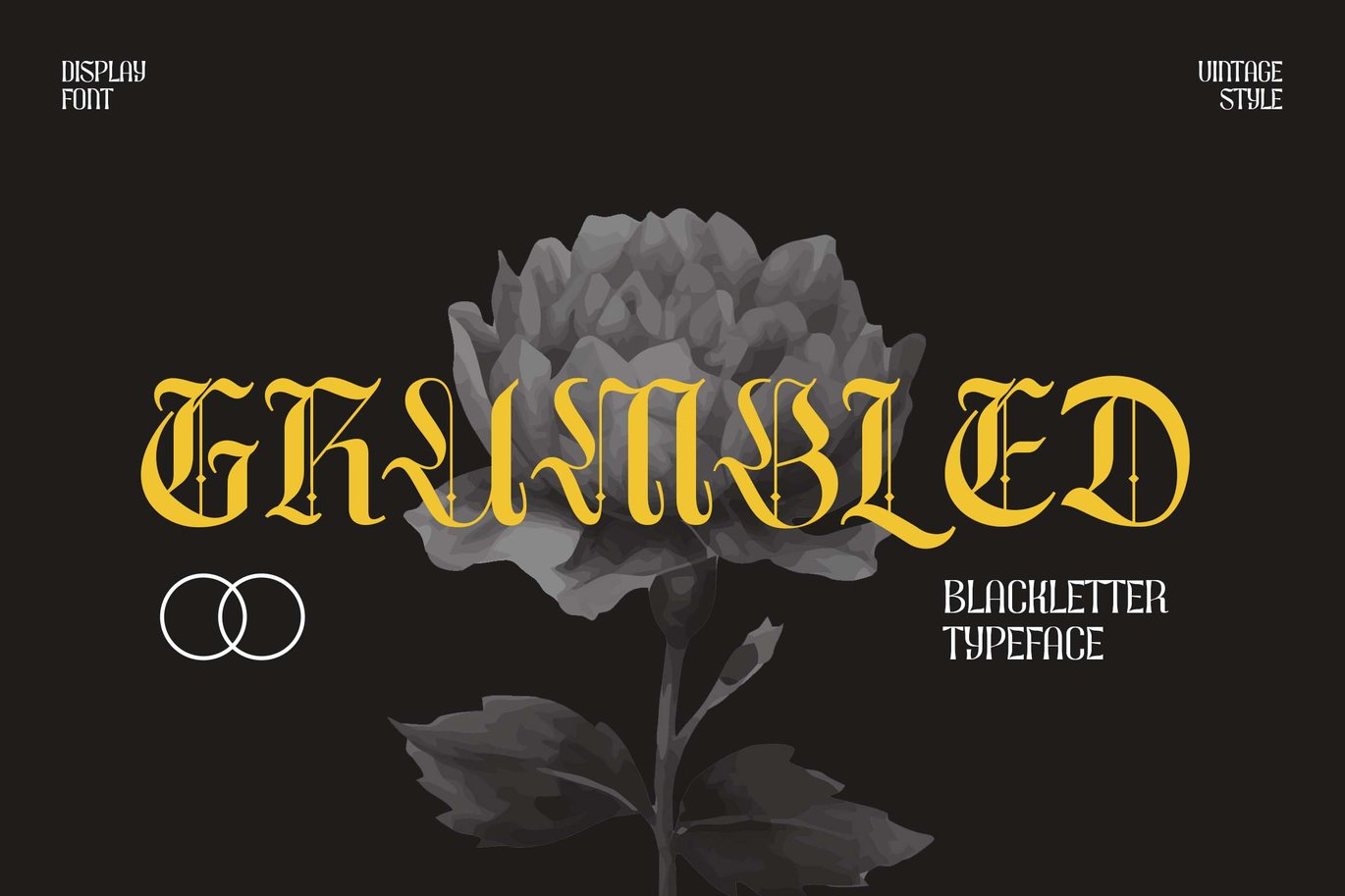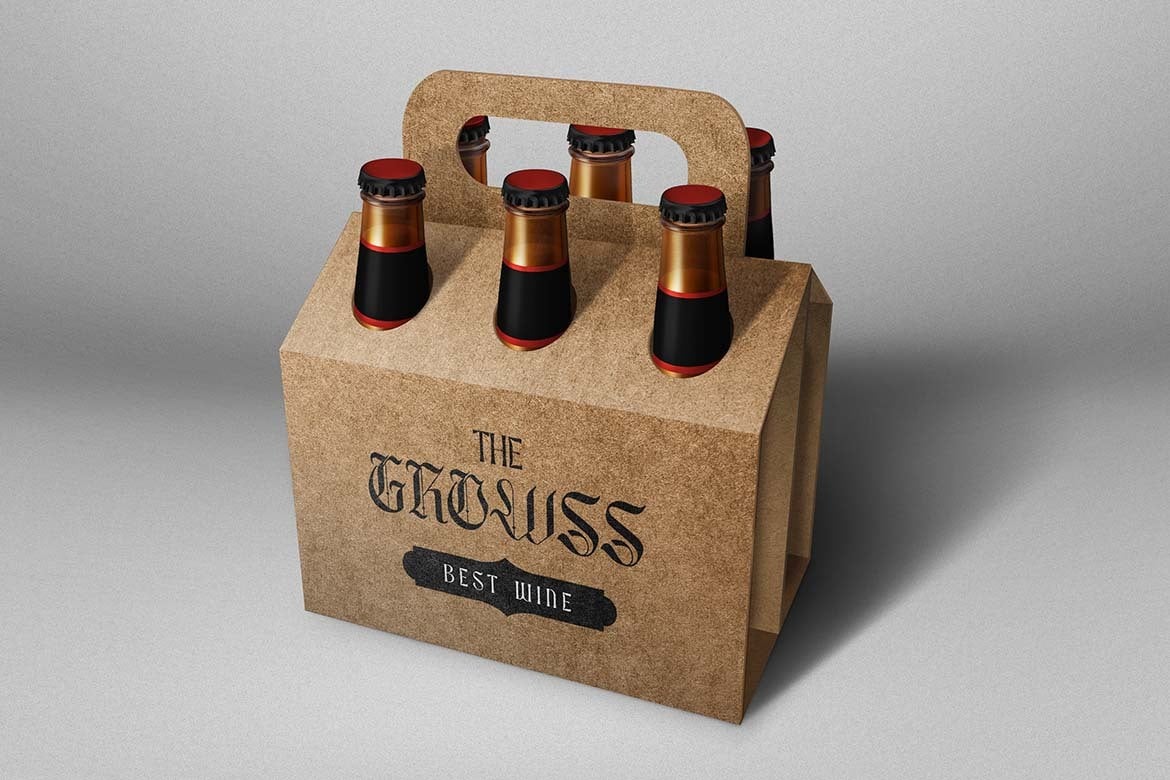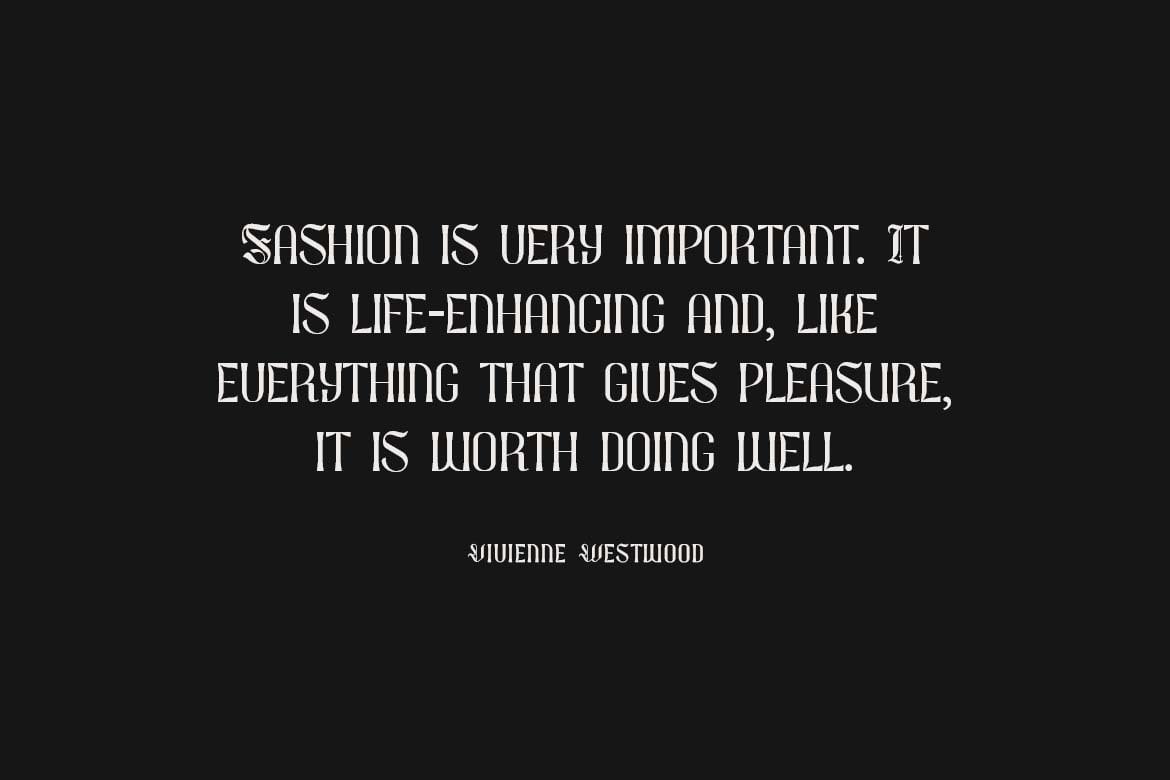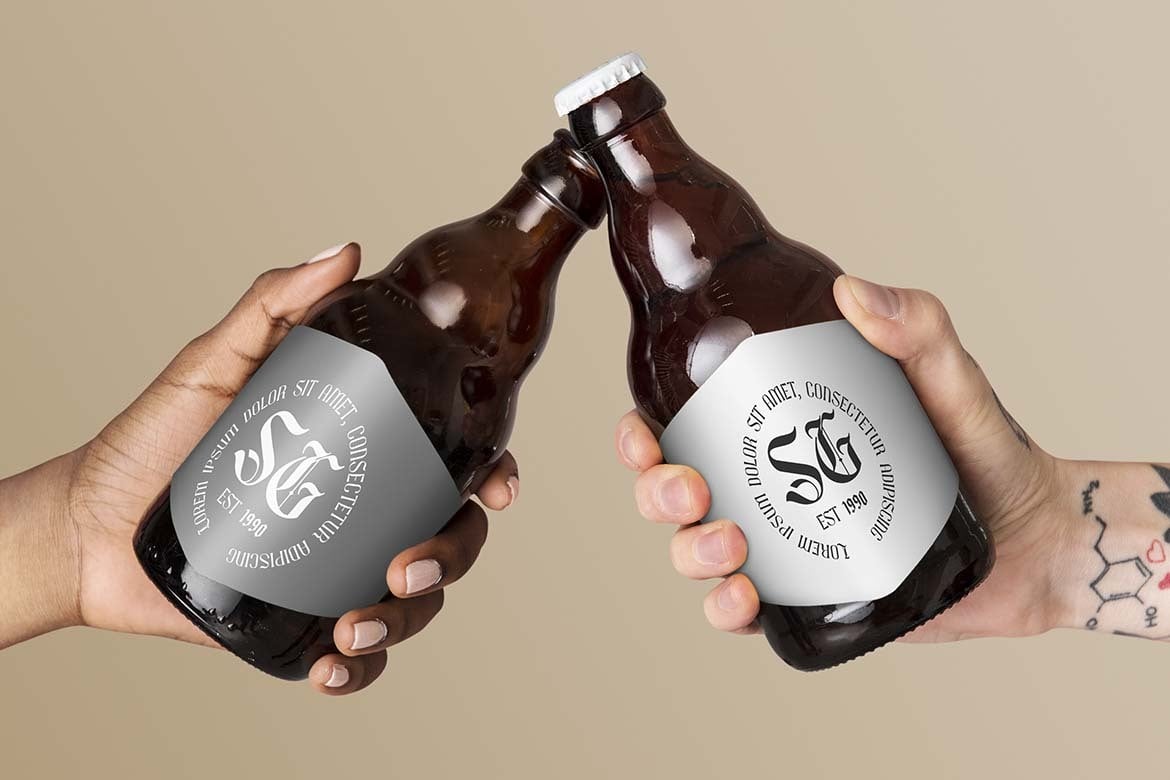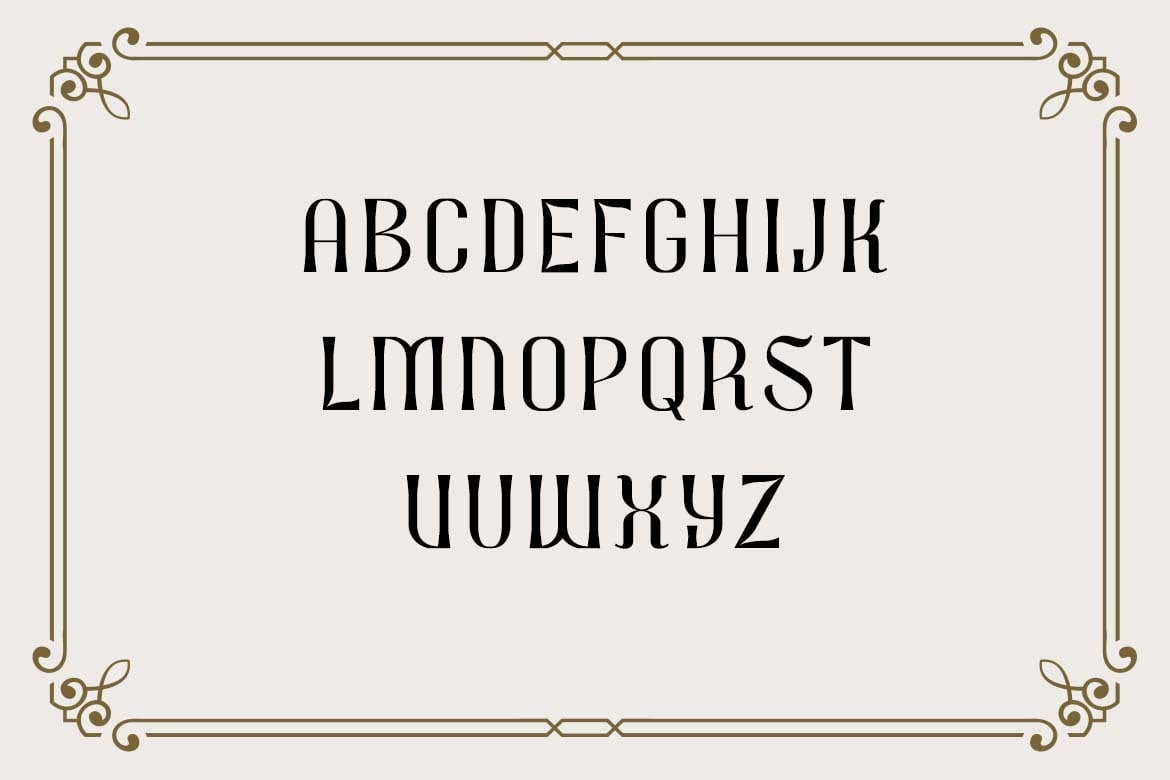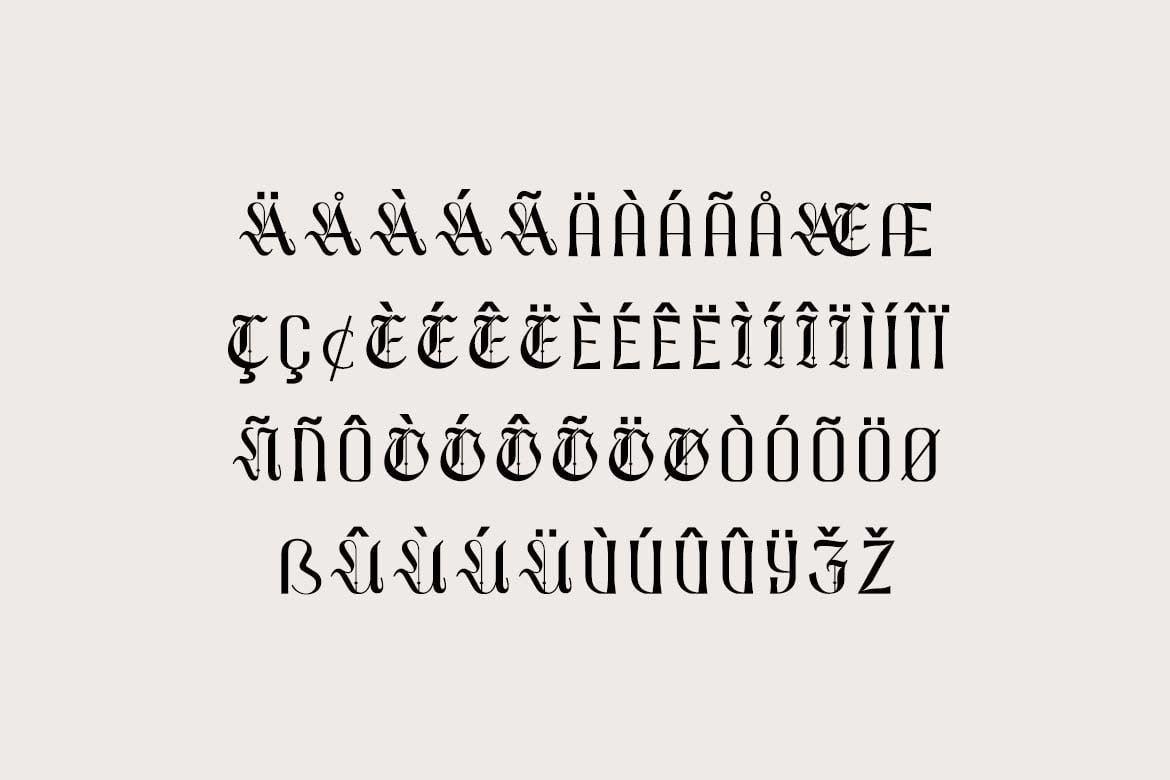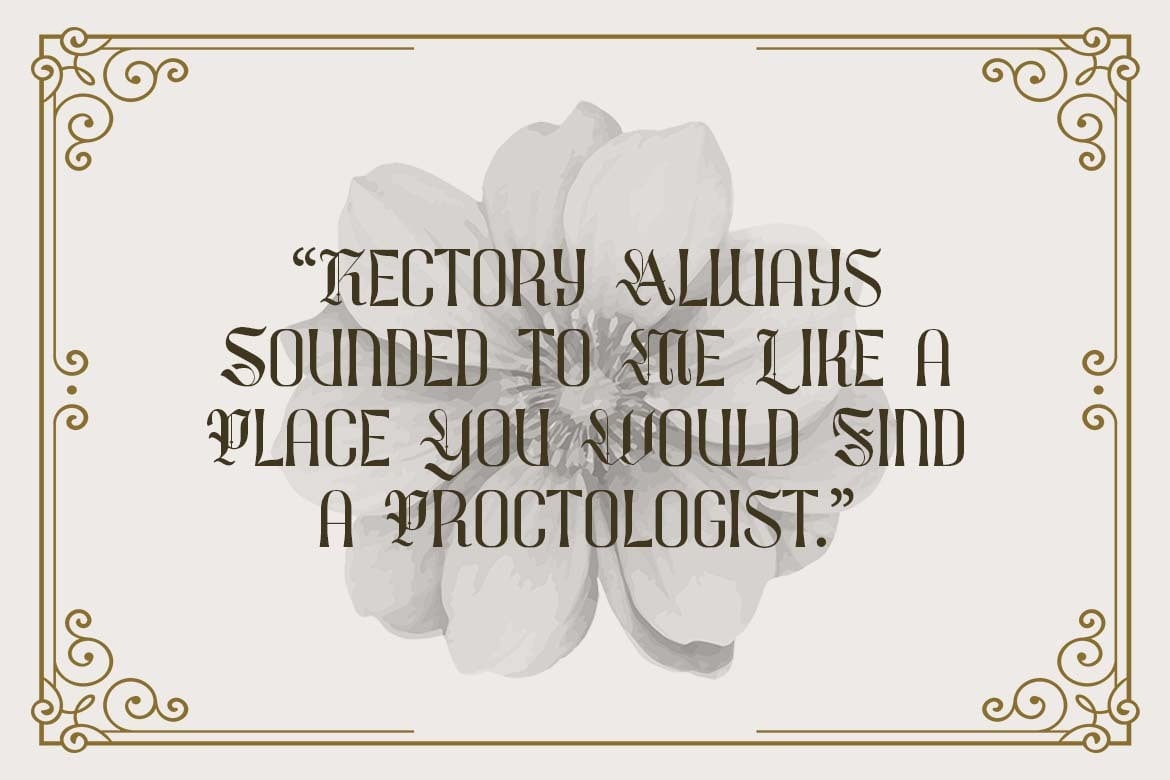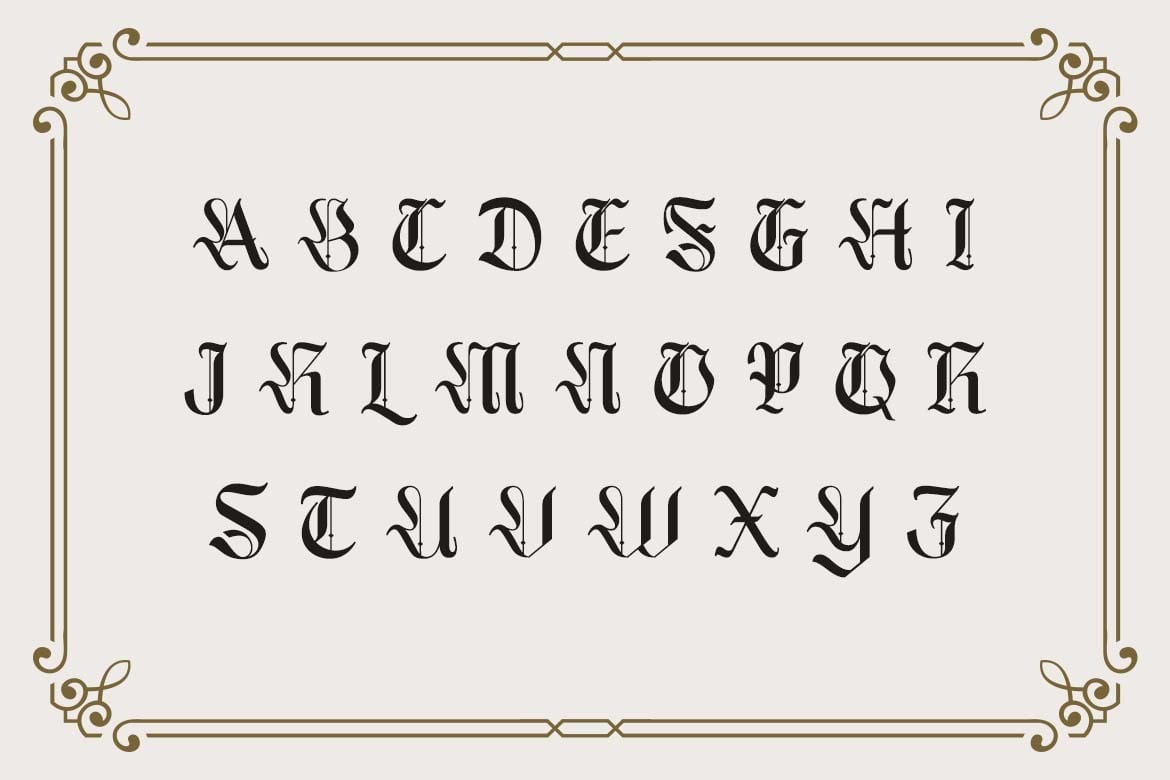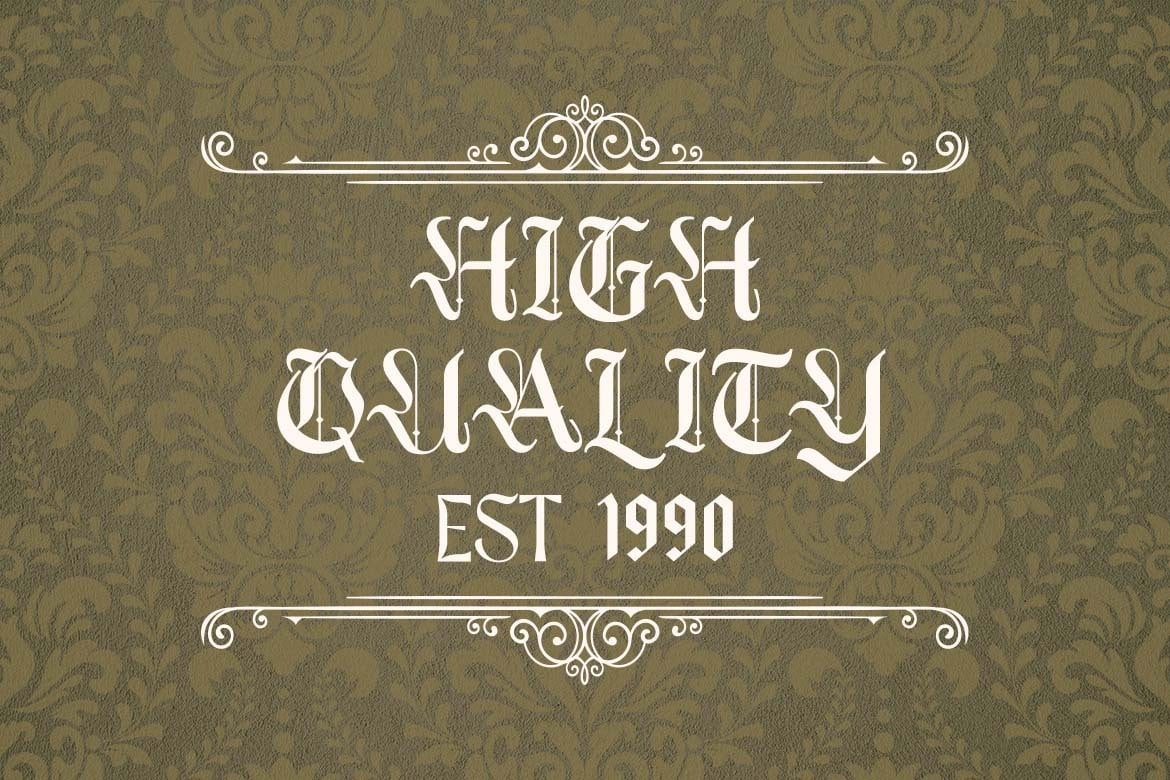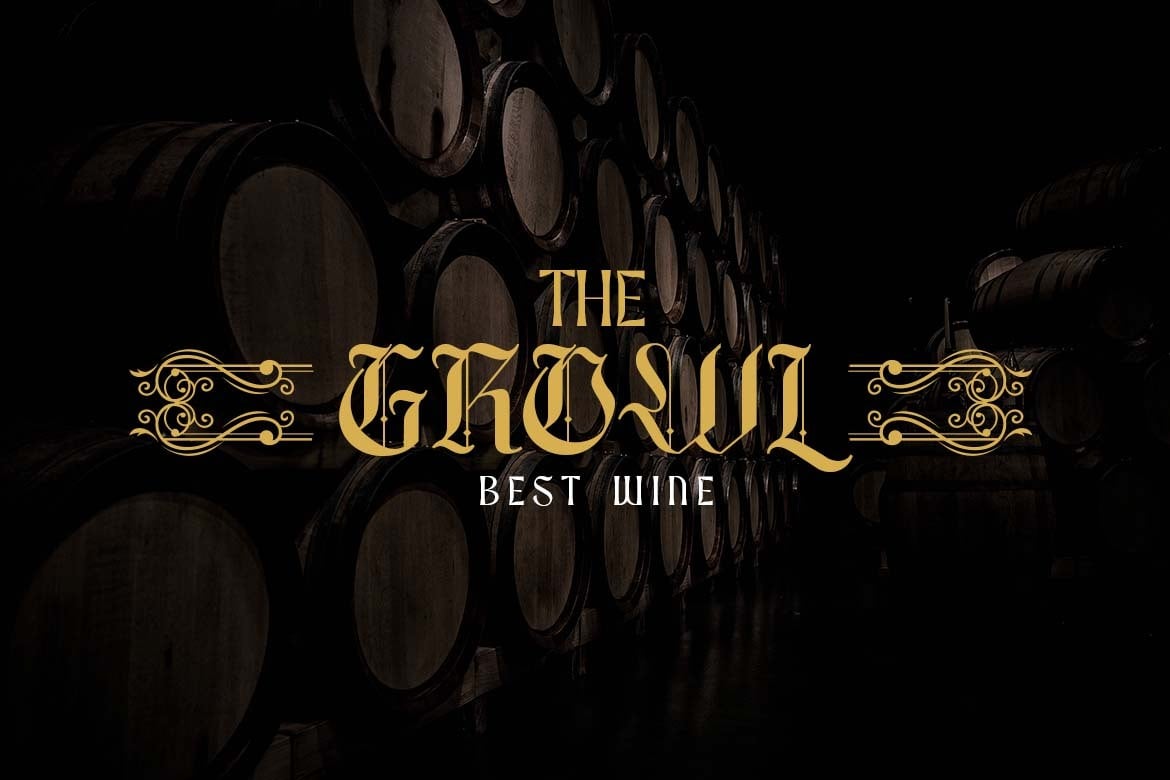
Grumbled Blackletter Font
Check out Grumbled Blackletter Font, a bold blackletter font that effortlessly blends street art with gothic typography. With its carefully crafted letter spacing, it brings a stylish and edgy typographic flair to your projects.
Grumbled Blackletter Font shines as a display font, particularly in medium to large sizes. Its dark and intense vibes make it perfect for creating underground-style designs such as posters, flyers, logos, branding, book covers, emblems, and more. Let Masberco add a touch of urban sophistication to your creative endeavors!